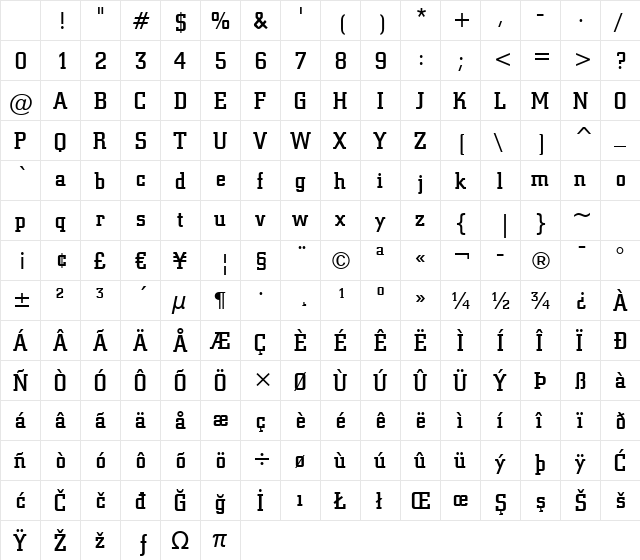
Complete SquareSlab711 Lt BT Medium glyph index. Displaying only characters natively supported by SquareSlab711 Lt BT Medium font.
SquareSlab711 Lt BT features prominent, blocky serifs that give it a confident, grounded presence - equally at home in editorial settings and bold branding work. Its slender proportions lend an understated elegance to any composition.